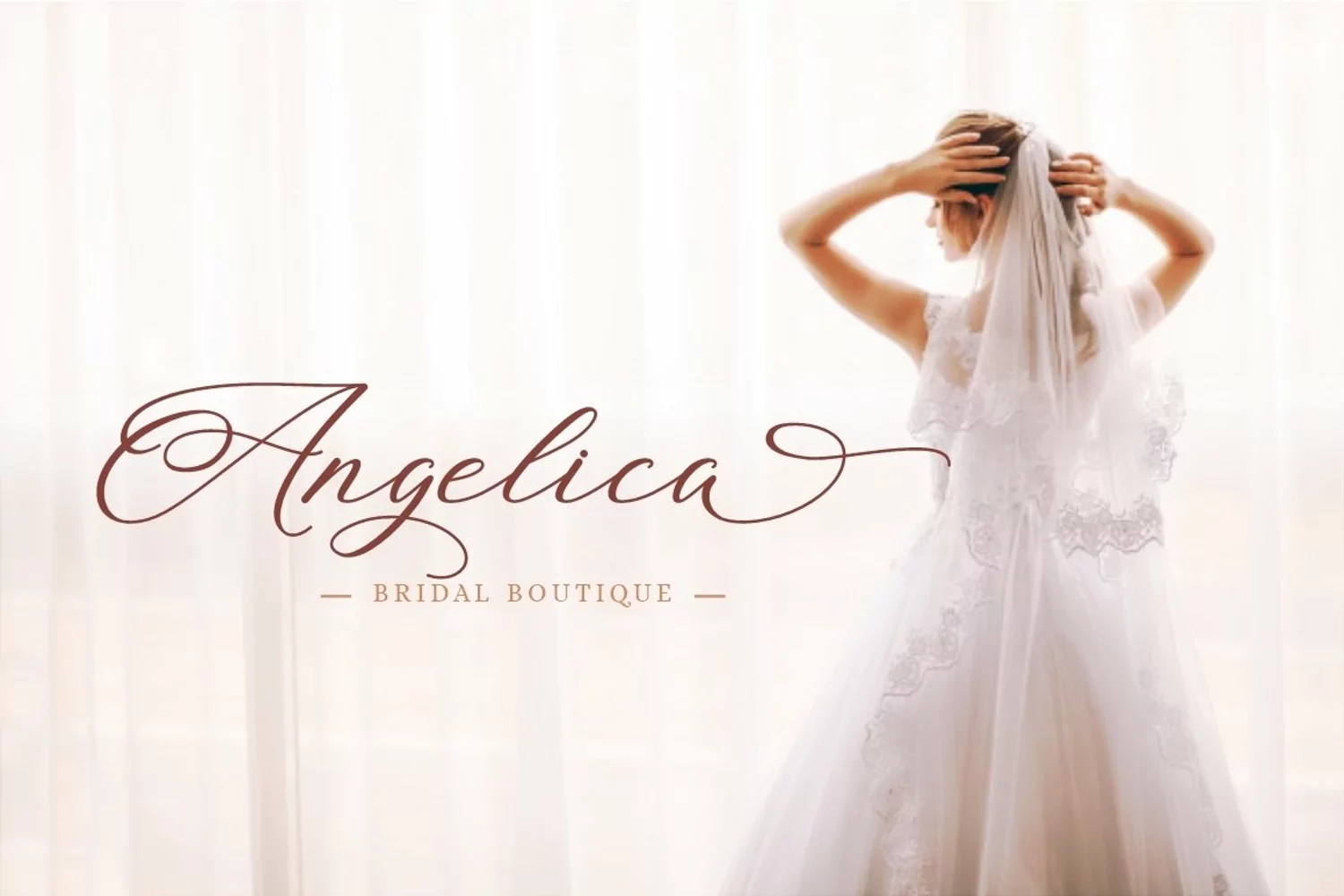
Blossom Heart - Valentine Font
Introducing a beautiful lovely script font called "Blossom Heart", a lovely font with 12 variation alternates of connected heart. Special fonts for valentine and wedding events.
Come with open type feature with a lot of alternates and end swash, its help you to make great lettering.
Gayesha best uses for valentine, wedding, invitation, heading, cover, poster, logos, quotes, product packaging, header, merchandise, social media & greeting cards and many more.
This font is also support multi language.